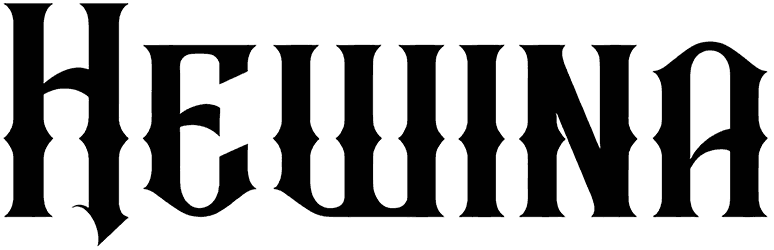
Hewina Font
There are plenty of opportunities for you to get creative by adding Hewina to your texts as a great Victorian font. You’re not going to find any lowercase letters in this whiskey font, but there’s also a difference between the two sets of decorative capitals.
It comes in handy, whether you’re asked to design a book title for a classic novel or your main focus right now is on delivering a matching journal cover for articles about ancient architecture.